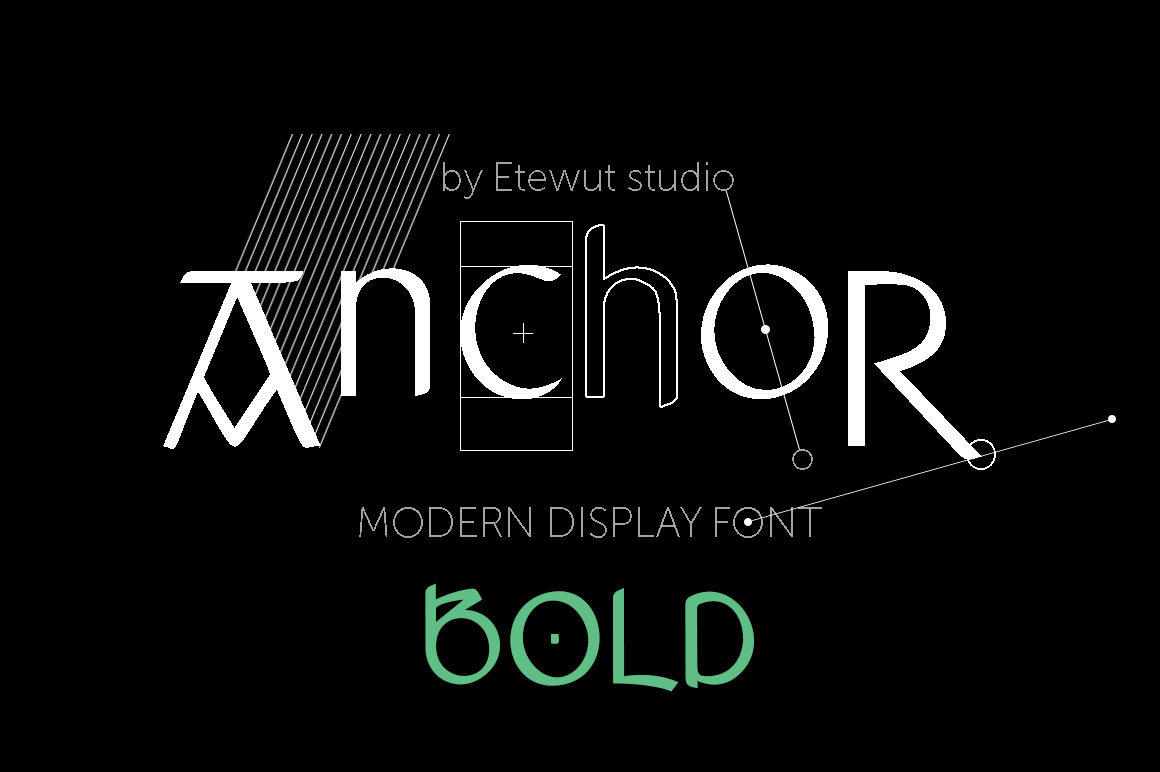
The Magical World of Anchor Font: A Designer’s Delight
Have you ever been in the middle of a design project, and suddenly, you’re stuck on finding the perfect font? I recall a recent experience where I was working on a whimsical children’s book, and my client requested a font that would transport readers to a fairy tale world. After hours of searching, I stumbled upon Anchor Font, inspired by Russian fairy tales and featuring Cyrillic lettering. It was love at first sight! ✨
A Personal Review of Anchor Font
- ✨ Unique and Whimsical Design: Anchor Font is a display font that truly stands out from the crowd. Its distinctive Cyrillic-inspired letters add a touch of magic to any design.
- ✅ European Language Support: The font comes packed with extra symbols, making it an excellent choice for designs that require support for European languages.
- 🌈 Versatility: Anchor Font matches many different styles of design, from vintage to modern, making it a versatile addition to your font library.
While Anchor Font is an excellent choice, there are a few minor quirks to be aware of: 🤔
- ⚠️ Limited Use in Body Text: Due to its ornate design, Anchor Font might not be the best choice for body text, especially in larger blocks of text.
- ⚠️ Glyph Limitations: Some users have reported that certain glyphs or special characters might not be available or might require additional installation.
The Story Behind Anchor Font
Anchor Font was inspired by the rich cultural heritage of Russian fairy tales. Its designer aimed to capture the essence of these timeless stories through a unique blend of Cyrillic lettering and whimsical design elements. The result is a font that transports readers to a world of magic and wonder.
Q: Is Anchor Font suitable for body text?
A: While Anchor Font is an excellent display font, it might not be the best choice for body text due to its ornate design. Consider using a clearer font for larger blocks of text.